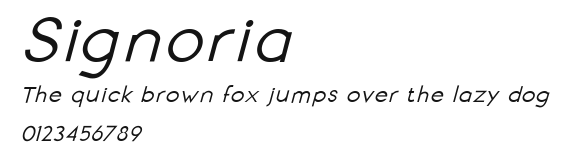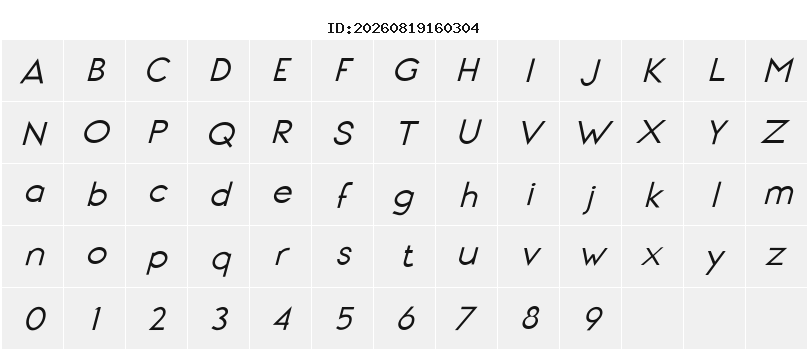
Signoria Preview
• Font Name: Signoria
• Font ID: TipografiaLeone: Signoria Bold Italic: 2014
• Full Font Name: Signoria Bold Italic
• PostScript Name: Signoria-BoldItalic
• Character Count: 329
• Designer: Tipografia Leone
• Manufacturer: Tipografia Leone
About Signoria.ttf
Signoria.ttf is a modern, elegant sans-serif font designed for ultimate readability and visual harmony. Perfect for branding, headlines, web design, and print materials.